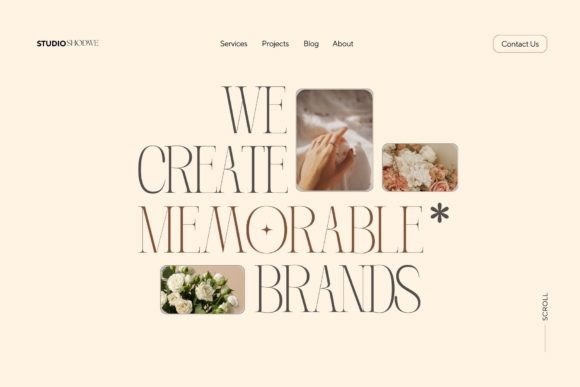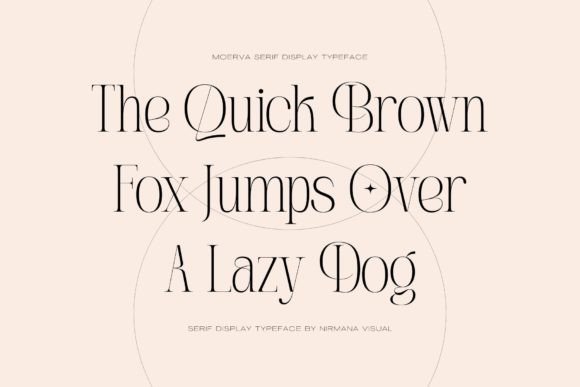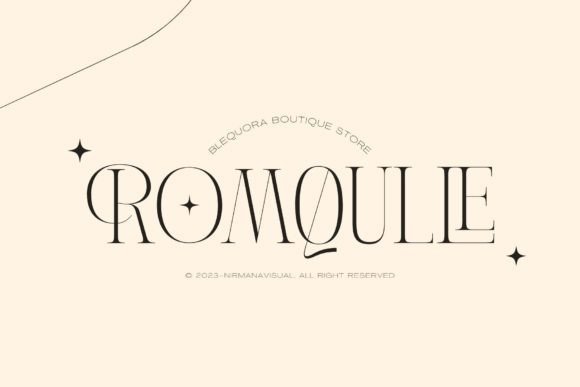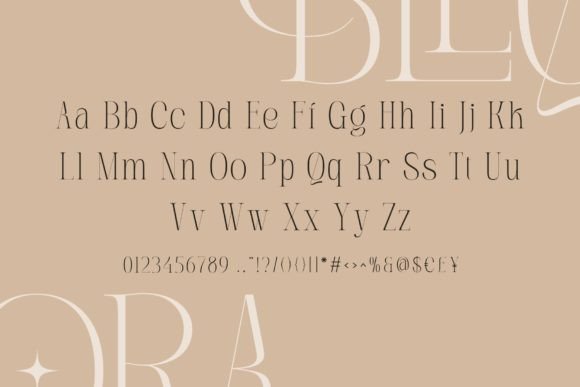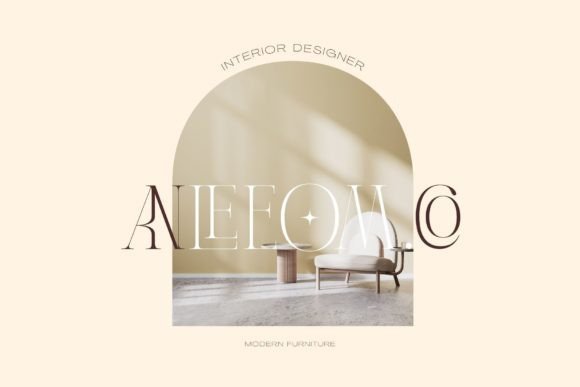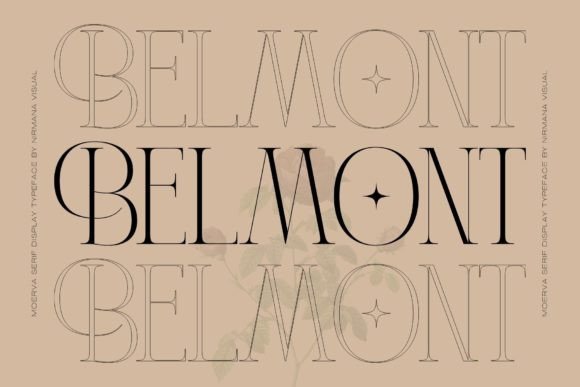
Introduction to Moerva Font
Moerva is a contemporary serif font inspired by the Art Deco Design era.
Moerva offers beautiful typographic harmony for a diversity of design projects, including logos & branding, social media posts, advertisements & product designs .